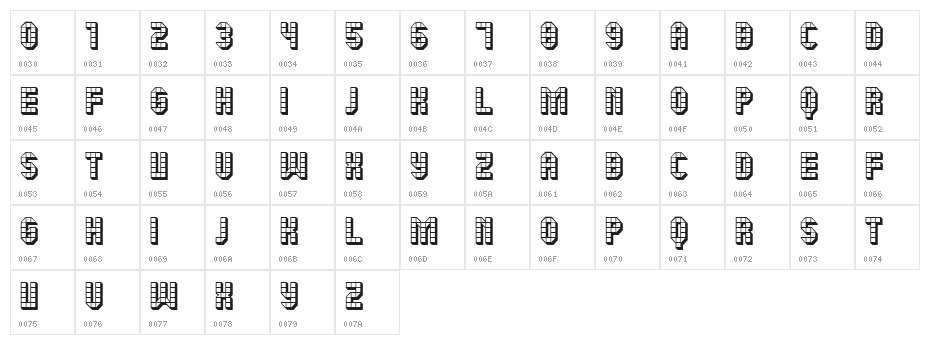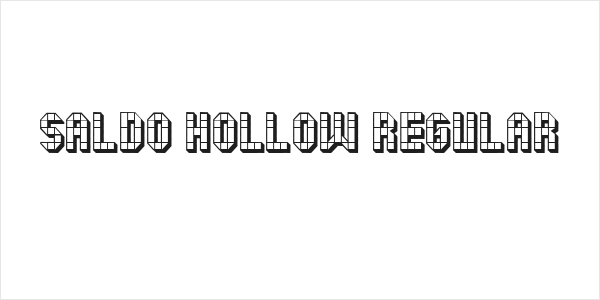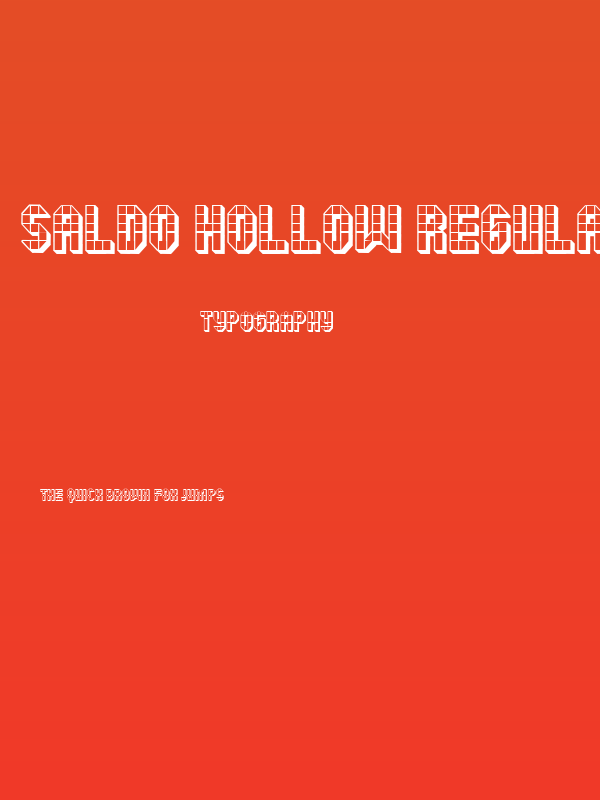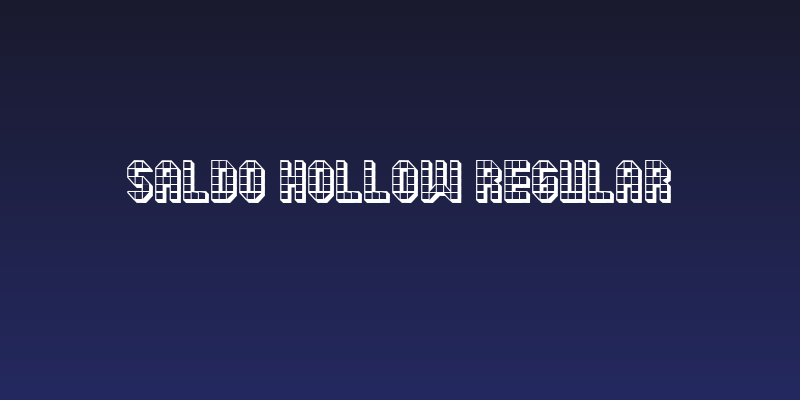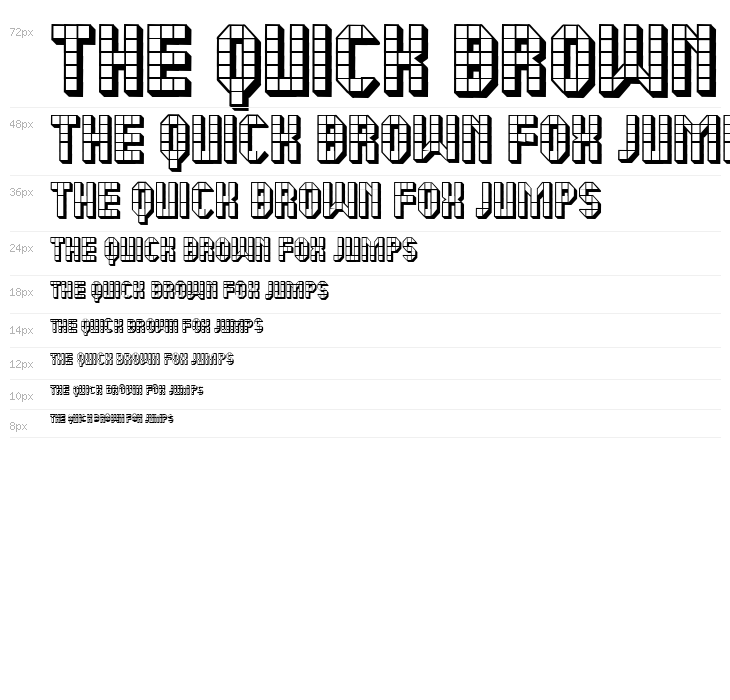
Saldo Hollow Regular Font
Saldo Hollow Regular Description
This font features a unique, geometric design with a hollow, grid-like structure. Each character is composed of bold outlines that form a three-dimensional appearance, reminiscent of architectural blueprints or digital wireframes. The letters are uniform in height and width, creating a cohesive and structured look. The hollow spaces within the characters add an element of lightness and intricacy, making the font visually striking. This style is ideal for projects that require a modern, tech-inspired aesthetic, such as digital art, futuristic branding, or innovative product packaging.
| Proposed Projects | Ideal for digital art, tech branding, futuristic designs, and innovative packaging. |